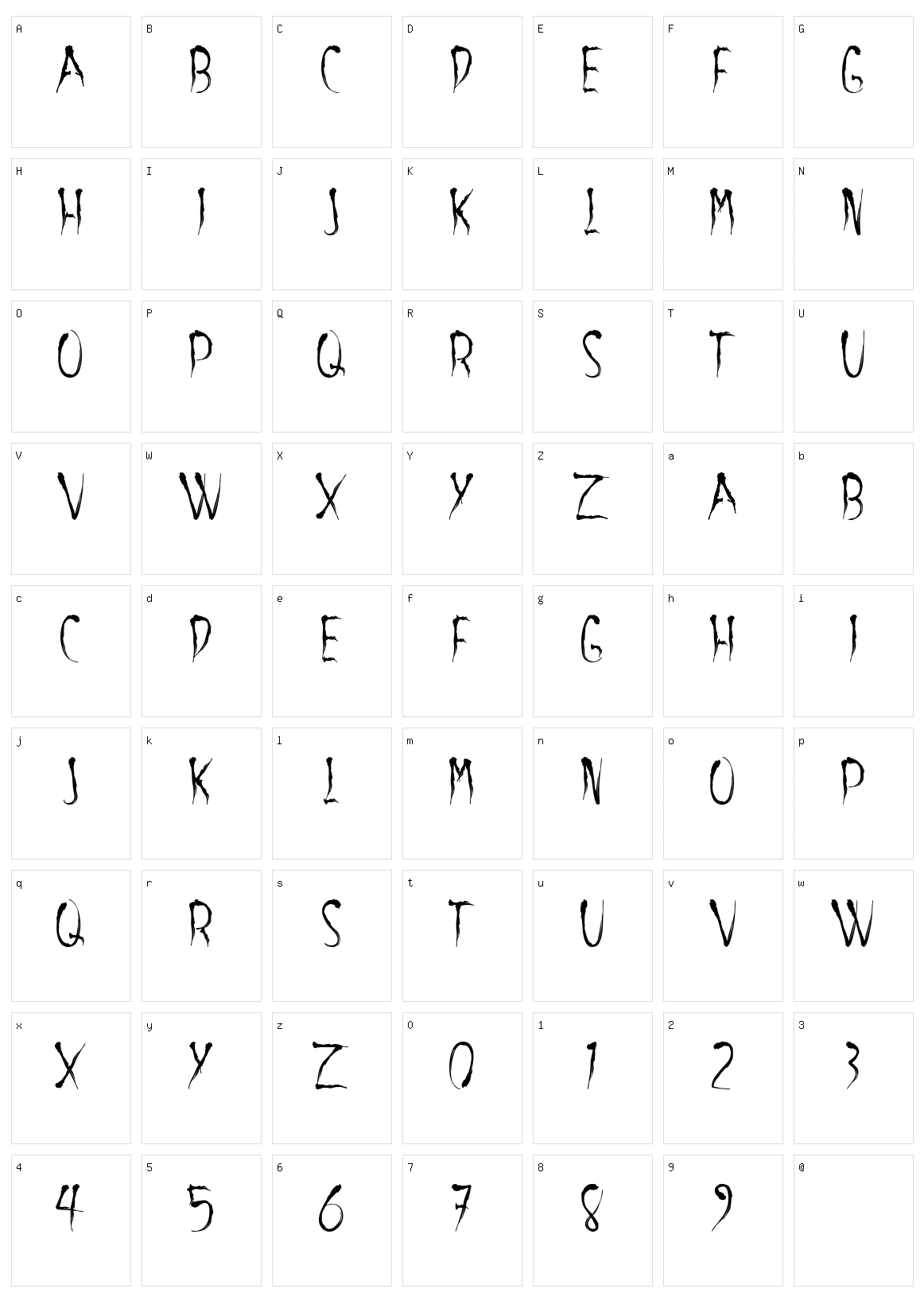
The free font Aracnoide is carefully designed by Grafito Design, showcasing a thoughtful balance of creativity and usability and falls under the Horror font style. When you download the ZIP file, it contains only 26.72 KB of font files, making it lightweight and quick to download. Please review the license details below to understand permitted usage and distribution rights. If license information is not available, we recommend using this font for personal projects only or contacting the author directly for commercial usage permissions.